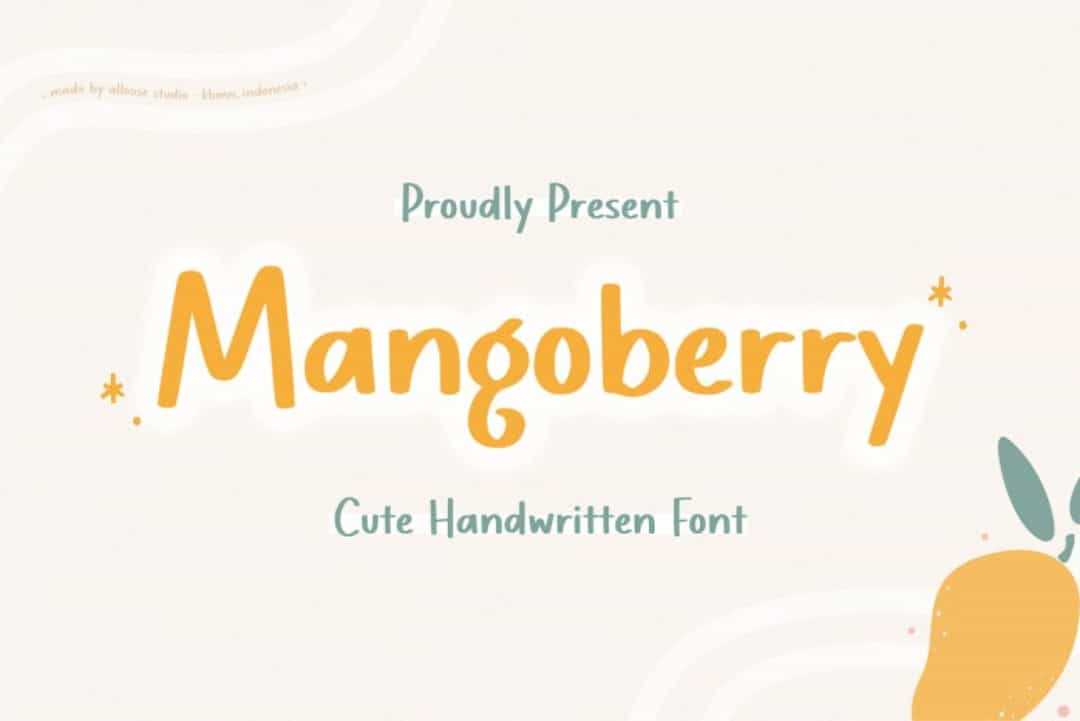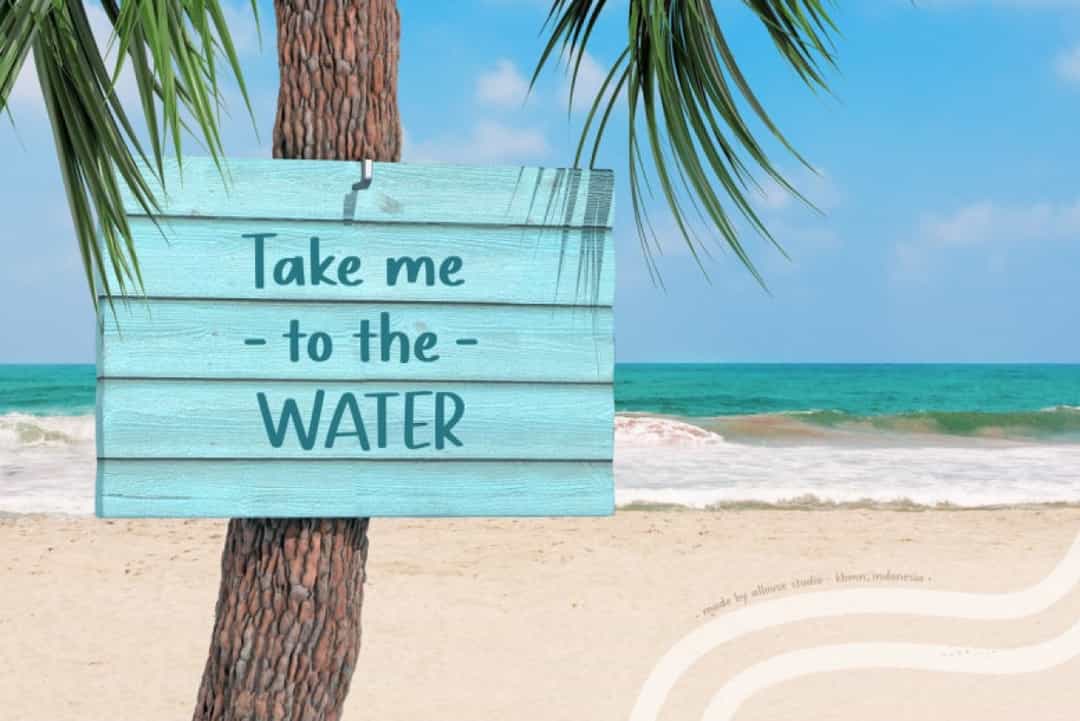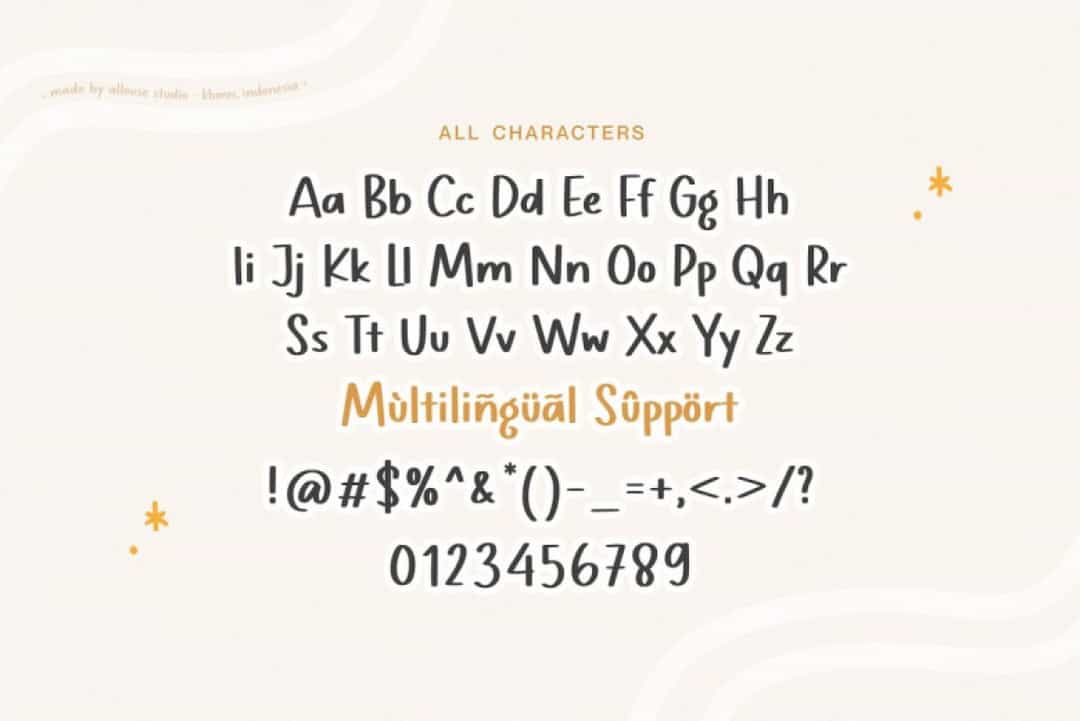
Mangoberry font is an adorable handwritten font which makes an impactful statement and can be used for packaging products, branding projects, magazines social media wedding or just writing words in the background. Comes complete with TTF support as well as multilingual capabilities.